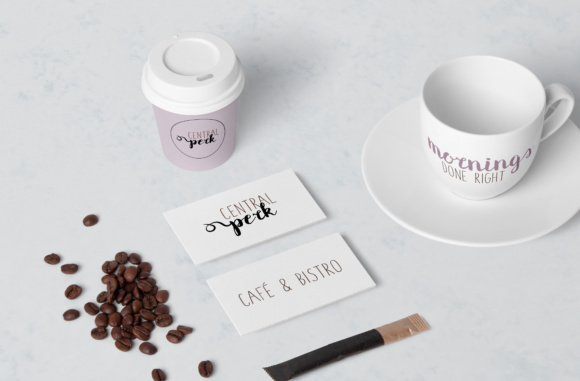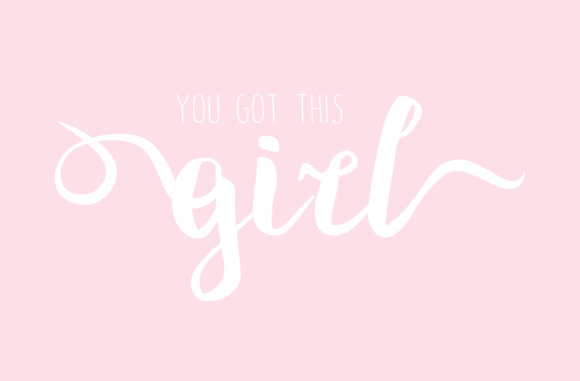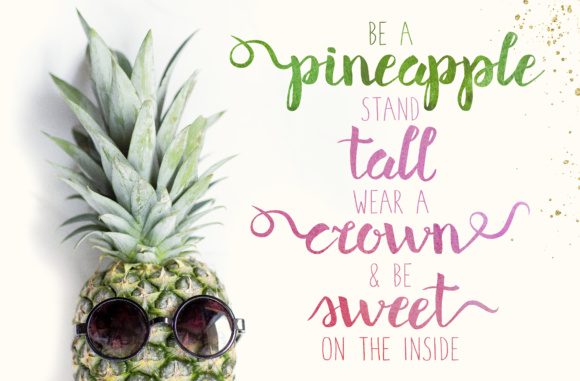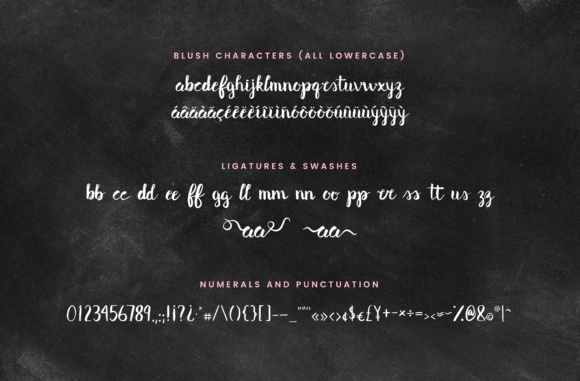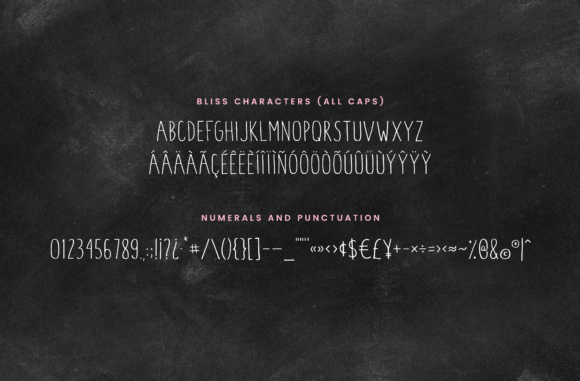
The Blush & Bliss Font Duo: A Designer’s New Best Friend
I still remember the last time I was working on a project, and I just couldn’t find the right font to bring my design to life. My client wanted something feminine, playful, and elegant, and I was determined to deliver. That’s when I stumbled upon the Blush & Bliss font duo, and let me tell you, it was love at first sight! 💕
First Impressions: A Perfect Font Duo
The Blush & Bliss font duo is a beautifully crafted pair of fonts that will add a touch of style and joy to any design. It features a playful brush script and a quirky all-caps sans serif, making it perfect for a wide range of design projects, from wedding invitations to social media graphics.
- ✨ The playful brush script is perfect for adding a touch of whimsy to any design
- ✅ The quirky all-caps sans serif is great for headlines and titles
- 💖 The font duo is incredibly versatile and can be used for a wide range of design projects
- 🎉 The fonts are easy to read and understand, making them perfect for body text
While the Blush & Bliss font duo is amazing, there are a few small quirks to keep in mind. 🤔 For example, the brush script can be a bit tricky to use at smaller font sizes, and some of the glyphs may not be suitable for all design projects. ⚠️ However, these limitations are minor and can be easily worked around with a little creativity.
The Designer Inspiration Behind Blush & Bliss
The Blush & Bliss font duo was created by a talented designer who wanted to create a font that would add a touch of style and joy to any design. The designer drew inspiration from their own experiences as a creative, and wanted to create a font that would be perfect for a wide range of design projects.
| Font Name | Blush & Bliss Font |
| Author | Christine Teixeira |
Q: What is the Blush & Bliss font duo?
A: The Blush & Bliss font duo is a beautifully crafted pair of fonts that features a playful brush script and a quirky all-caps sans serif.
Q: What can I use the Blush & Bliss font duo for?
A: The Blush & Bliss font duo is perfect for a wide range of design projects, from wedding invitations to social media graphics.
Q: Is the Blush & Bliss font duo easy to use?